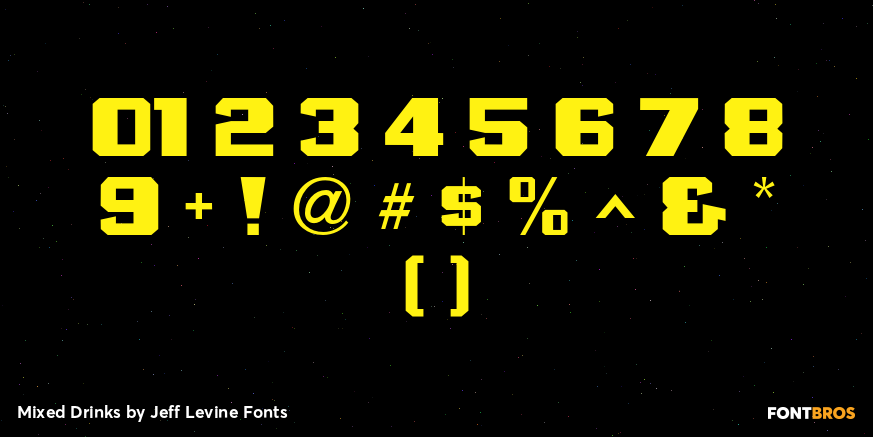
Mixed Drinks
Mixed Drinks JNL derives its look from a set of gold foil self-adhesive letters made by a company called Cameo for the Schenley distilling company circa the late 1950s or early 1960s.
The letters were used to personalize bottles of whiskey for your own bar or to give as a unique gift.
Mixed Drinks by Jeff Levine Fonts